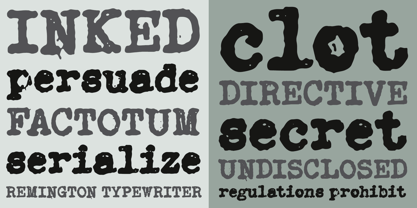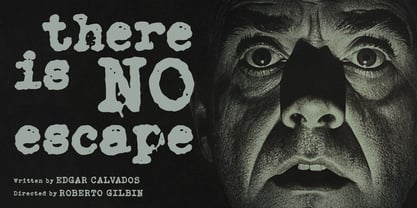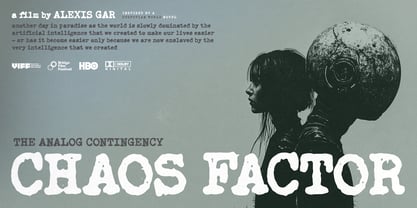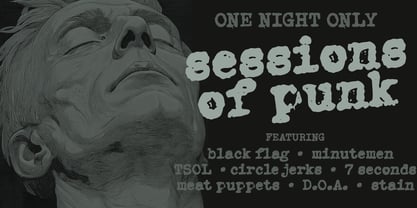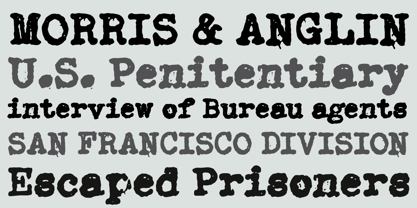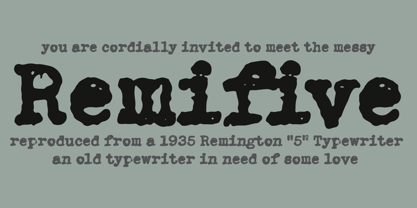
Remifive
by Fontasmic
The Remifive Font Family was designed by Sawyer Hume and published by Fontasmic. Remifive contains 1 styles. More about this family
Remifive is a messy, over-inked typewriter font faithfully reproduced from the battered typings of a 1935 Remington “5” typewriter. Every character captures the imperfect charm of a well-worn machine—ink clots, uneven impressions, and rough mechanical texture included—bringing the gritty authenticity of analog typewriting into the digital age. Rather than a clean typewriter revival, Remifive embraces the unpredictable personality of old ribbon ink and heavily used typebars. Letters appear slightly clogged, worn, and inconsistently inked, recreating the look of documents hammered out on a hardworking machine that has seen decades of use. The result is a raw, tactile texture that feels archival, conspiratorial, and unmistakably human. Remifive shines in designs that benefit from authentic typewritten character and distressed mechanical charm. It works beautifully for punk posters, book titles, underground zines, film graphics, vintage packaging, crime dossiers, typewritten letters, and conspiracy-style documents where the irregular ink texture becomes part of the storytelling. While it performs best at smaller sizes where the gritty typewriter texture feels most natural, it can also deliver striking impact in headlines when that distressed mechanical voice is desired.